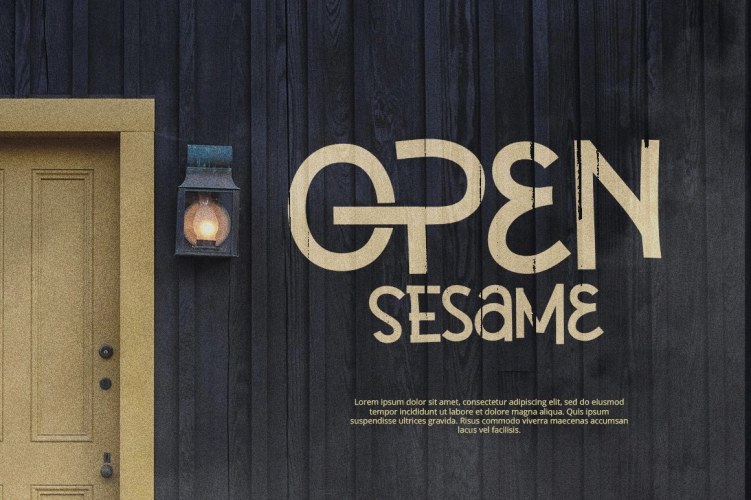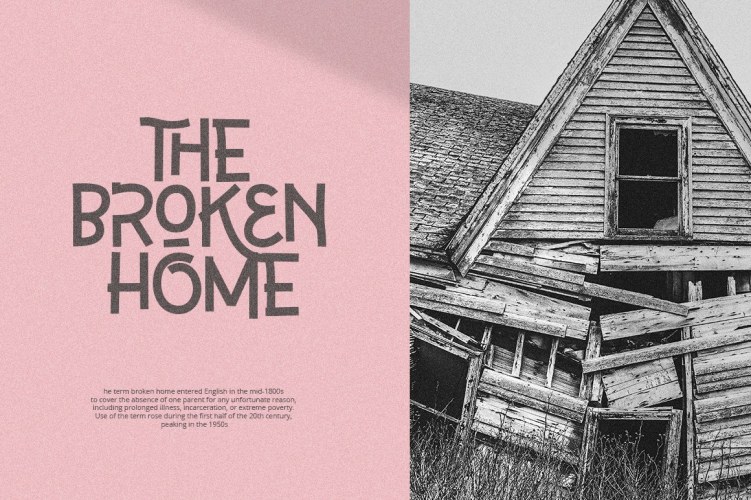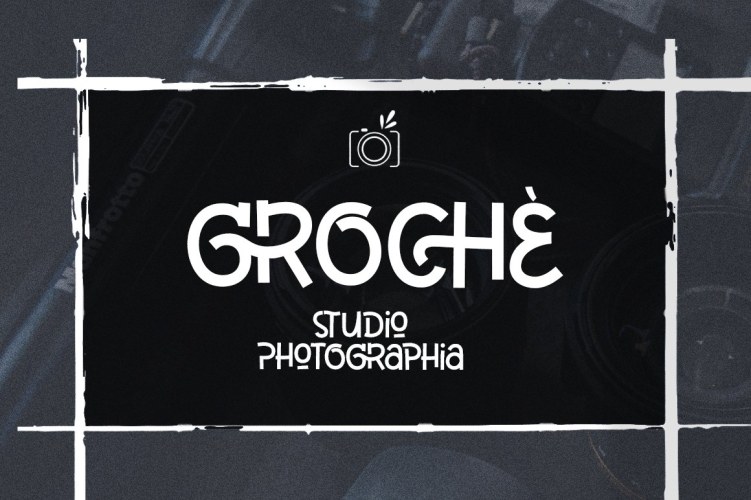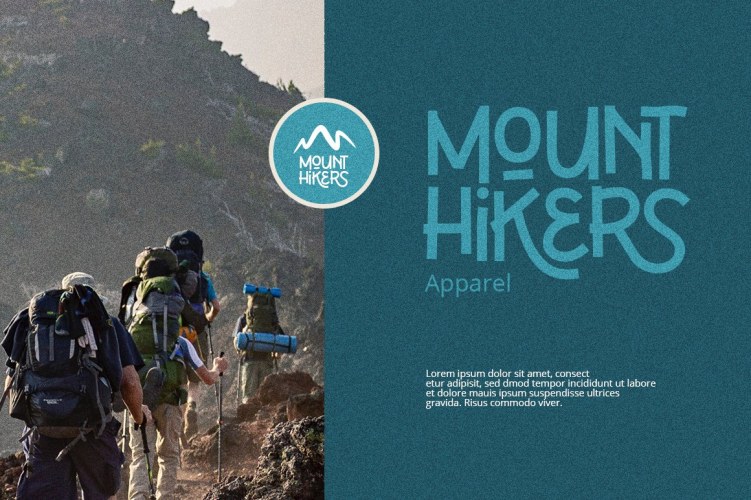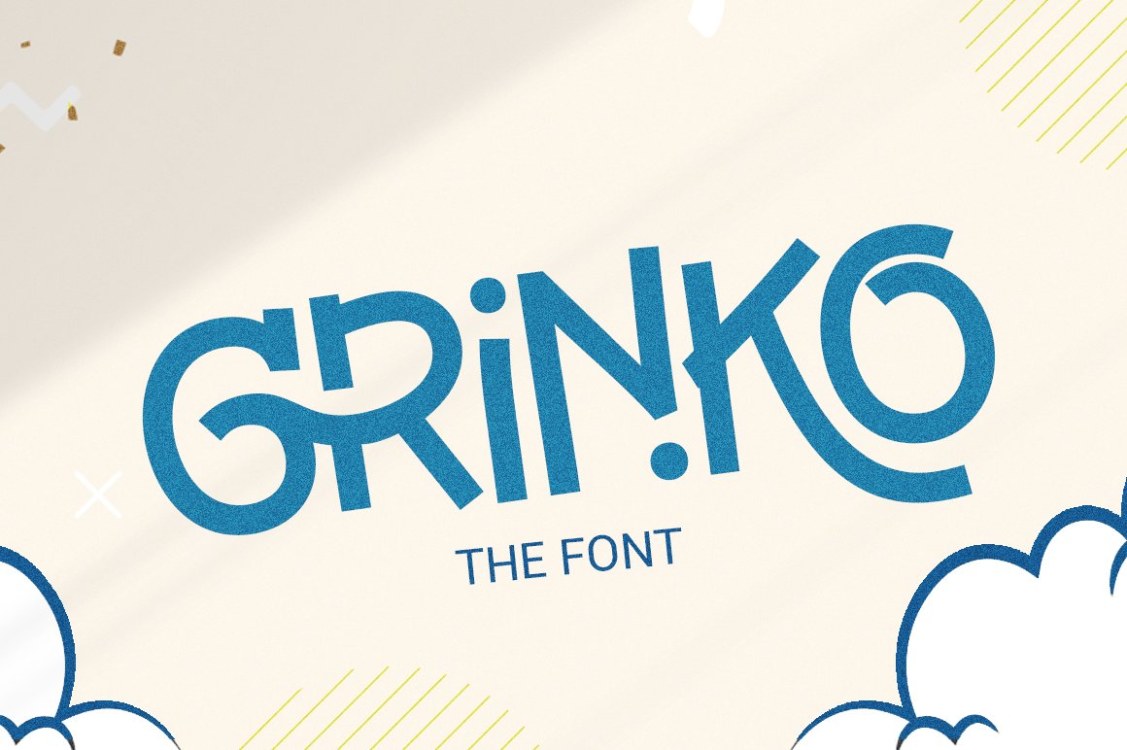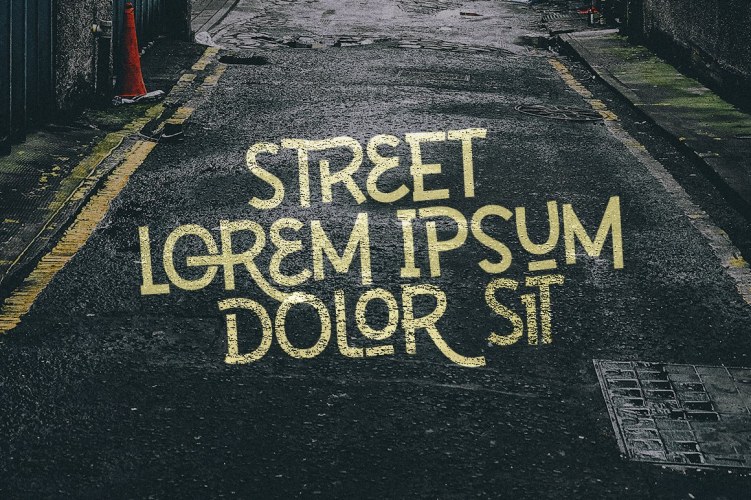
Grinko Font
Grinko is an elegant and casual retro decorative font. Each uppercase and lowercase letter has its own characteristics, plus some alternates and ligatures. This font is bold and tight kerning, very suitable for your design projects such logo tagline, logotype, name card, flyers invitation, magazine header etc.
Uppercase glyphs
Lowercase glyphs
Numeral and Punctuations
Standard Ligatures
Stylistic Alternates
Grinko Font is a Decorative Fonts font that brings a professional and versatile look to your projects. Grinko is an elegant and casual retro decorative font.